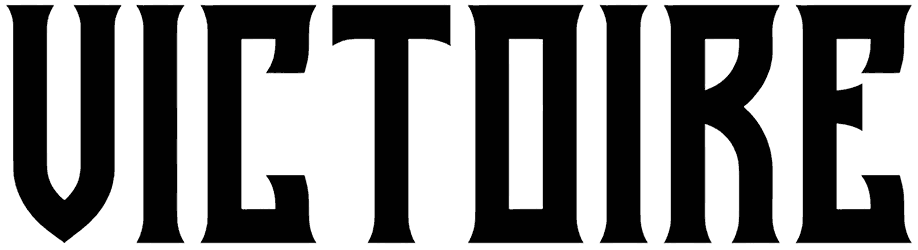
Victoire Font
Let’s take a look at this Victorian font with decorated serif letters. Victoire, with its nostalgic and strong mood, is a captured fit for your modern or classic designs. Don’t lose this item and test it on your coming projects like logos, covers, movies, or whatnot, and it will give you a salient mood even without lowercase backup.
Victoire is an elegant typography, inspired in the vintage style, and the serif used on it makes it more attractive and clear. This font has the perfect style for classic brand designs and logos, and is free for personal and commercial use.